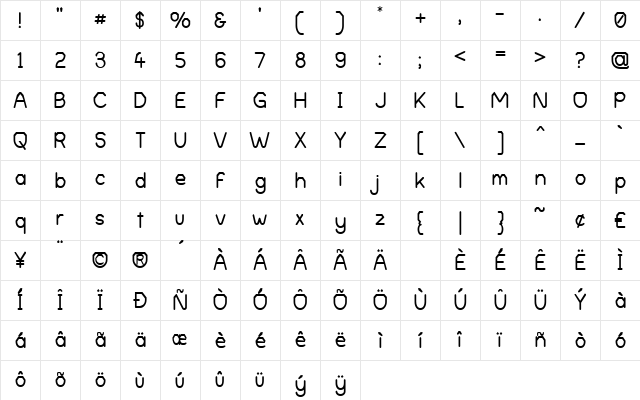
Alpha Romanie G98 Regular
Complete Alpha Romanie G98 Regular glyph index. Displaying only characters natively supported by Alpha Romanie G98 Regular font.
Design Context for Alpha Romanie G98
Alpha Romanie G98 is a composed and adaptable typeface that performs quietly and consistently across a wide range of design contexts.
Pro Tip: Use Alpha Romanie G98 in both headline and body roles to test its range before committing to a single application.